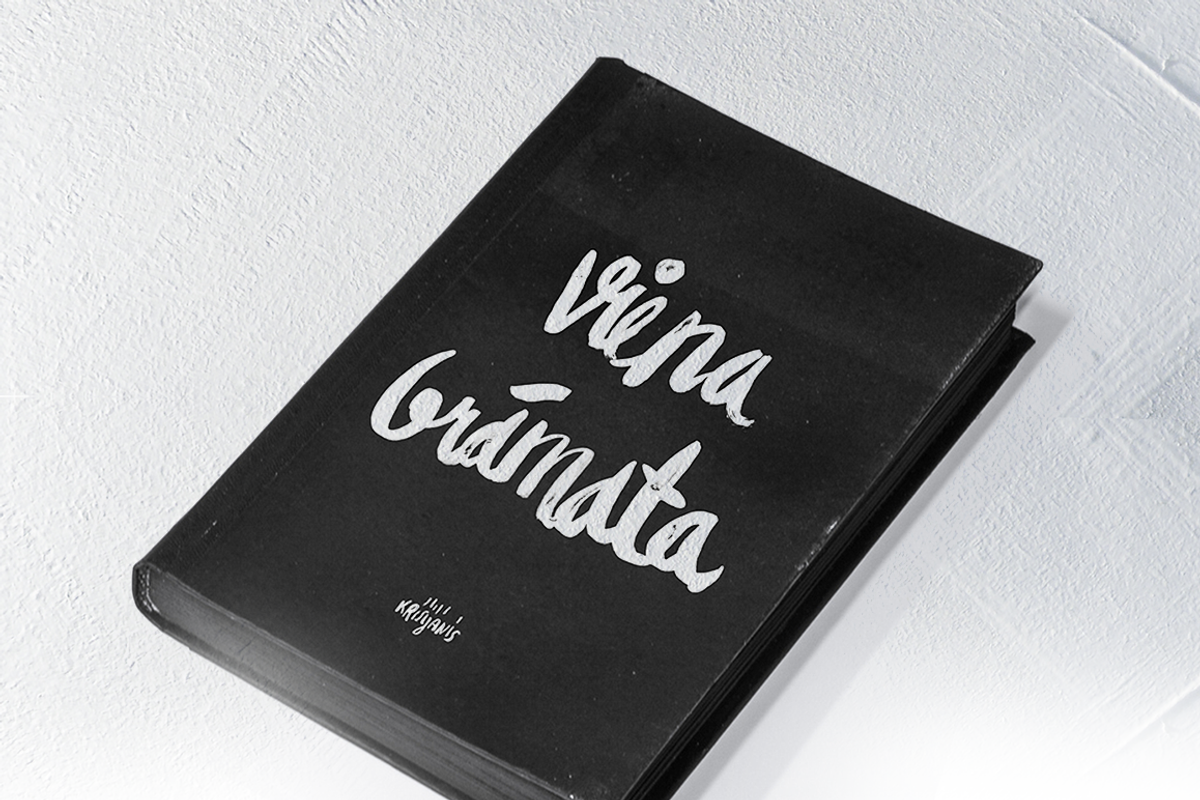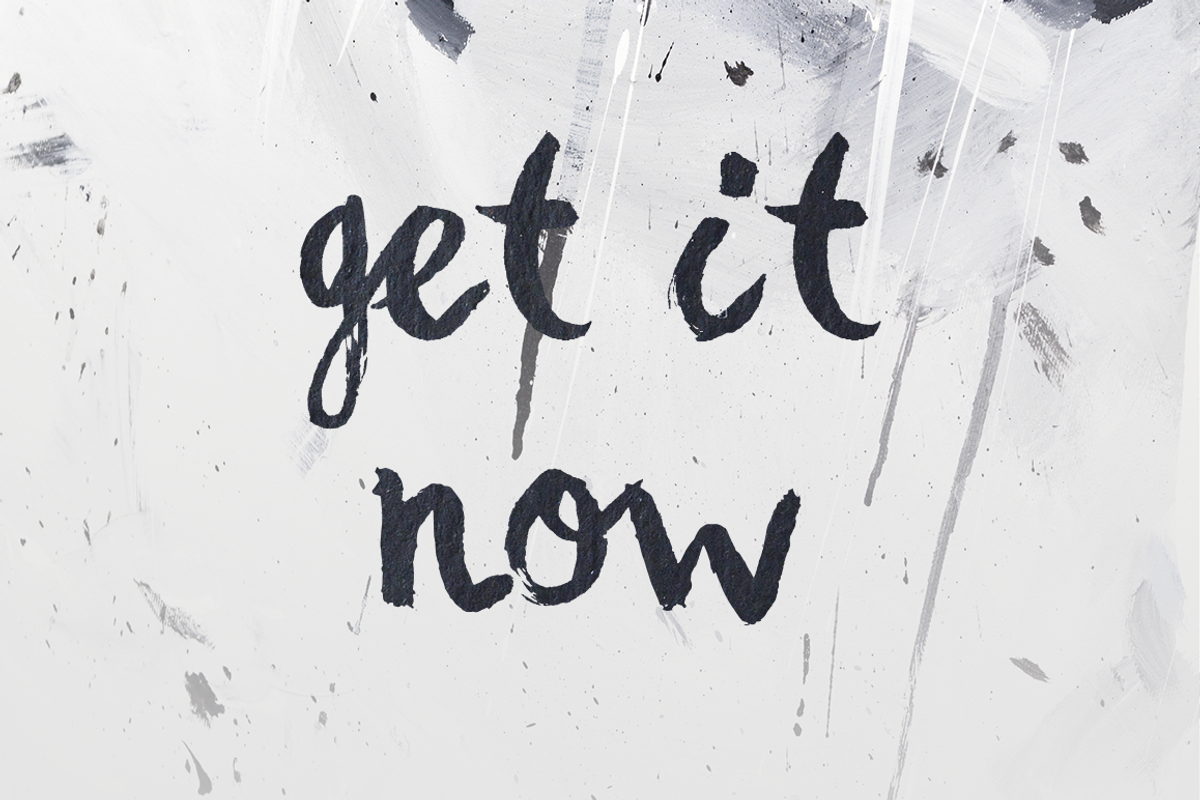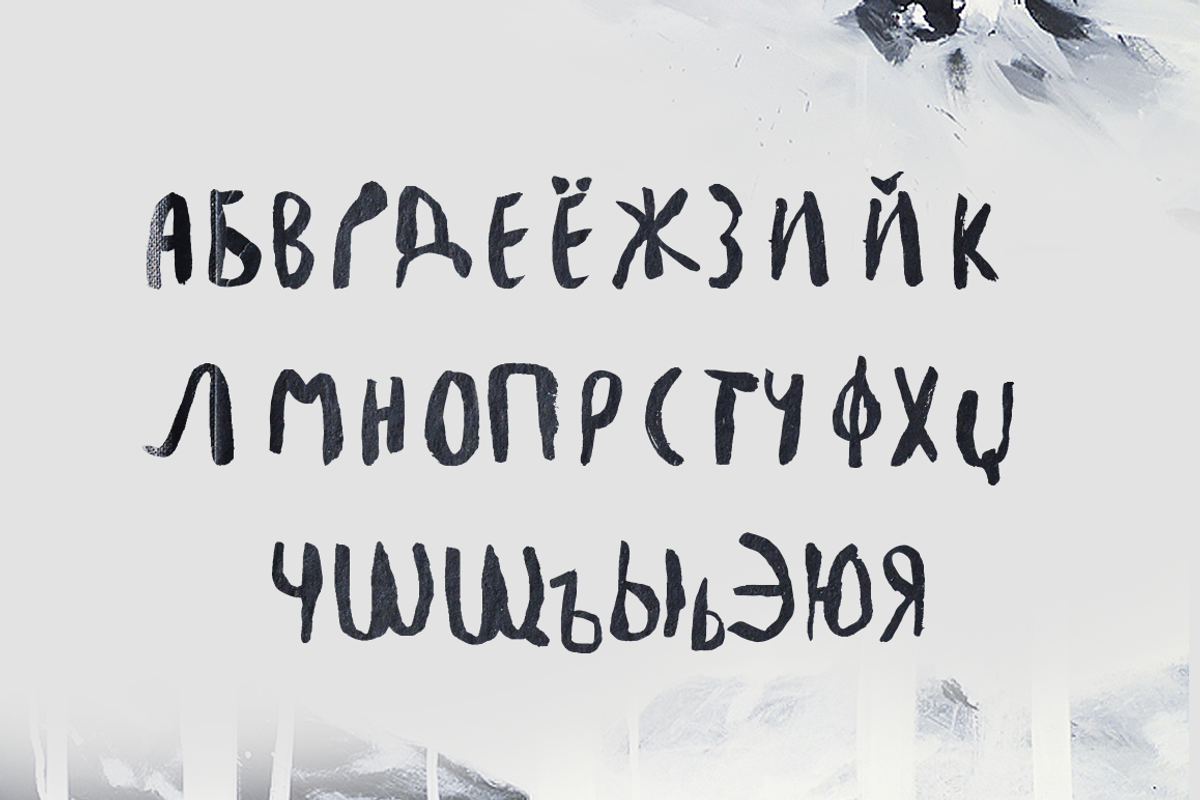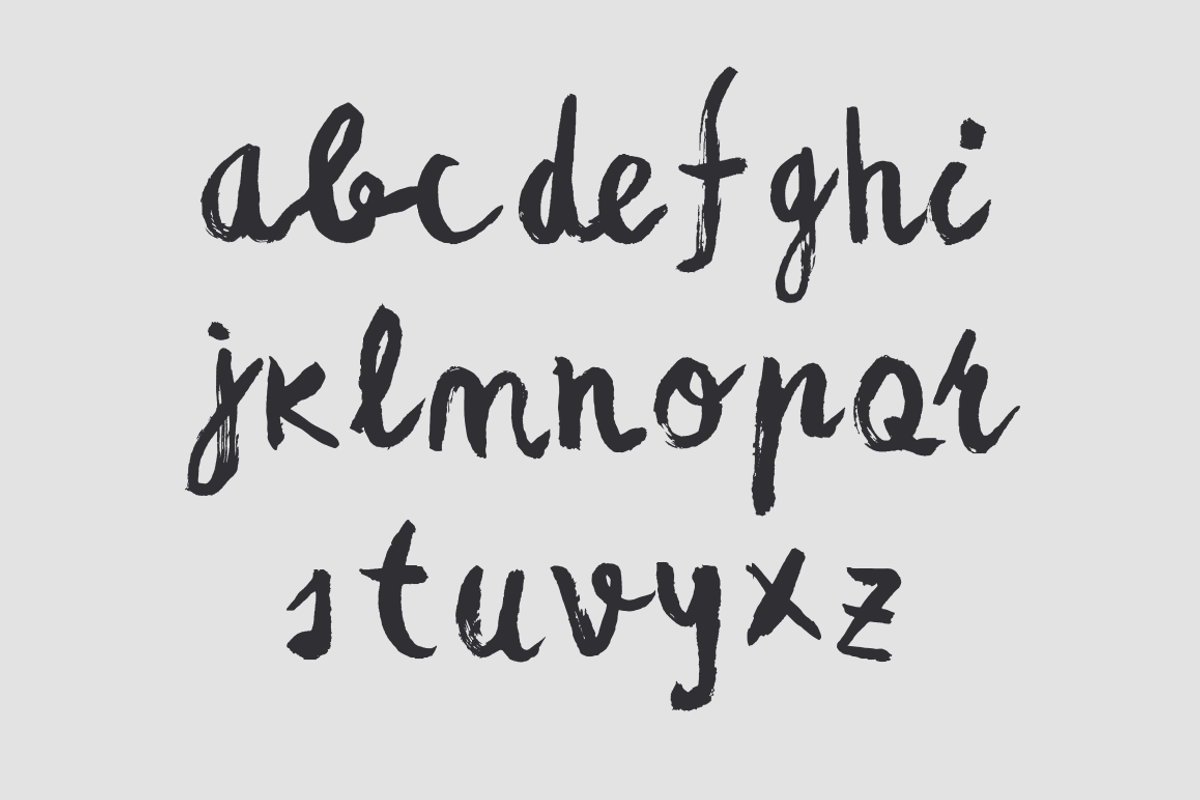
Besom Extended Brush Font
Besom Extended Brush Font by Wild Ones is a font selected for branding, posters, packaging, typography.
- It has been updated and now contains mall letters , cryllic letters and EU country based glyphs.
Why Besom Extended Brush Font is worth a look
Besom Extended Brush Font by Wild Ones fits naturally into Branding, posters, packaging, typography.